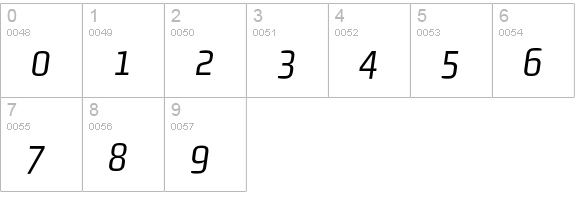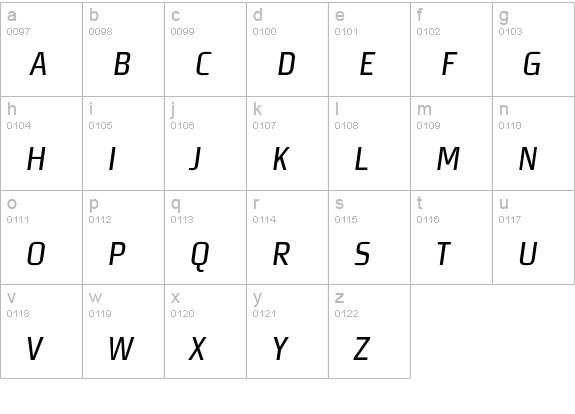
MorganSansCond ItalicExpert Font Details
MorganSansCond ItalicExpert font is a versatile and elegant typeface that exudes sophistication and modernity. Its slanted italic design adds a touch of flair and uniqueness to any text, making it perfect for a wide range of design projects. Whether you're creating a stylish logo, eye-catching poster, or sleek website, MorganSansCond ItalicExpert font is sure to make a statement. What sets this font apart is not only its striking aesthetics but also its accessibility. MorganSansCond ItalicExpert font is available for free download at FontsMarket.com, allowing designers and enthusiasts alike to access this high-quality typeface without any cost. With its combination of style and affordability, MorganSansCond ItalicExpert font is a must-have addition to any font library.